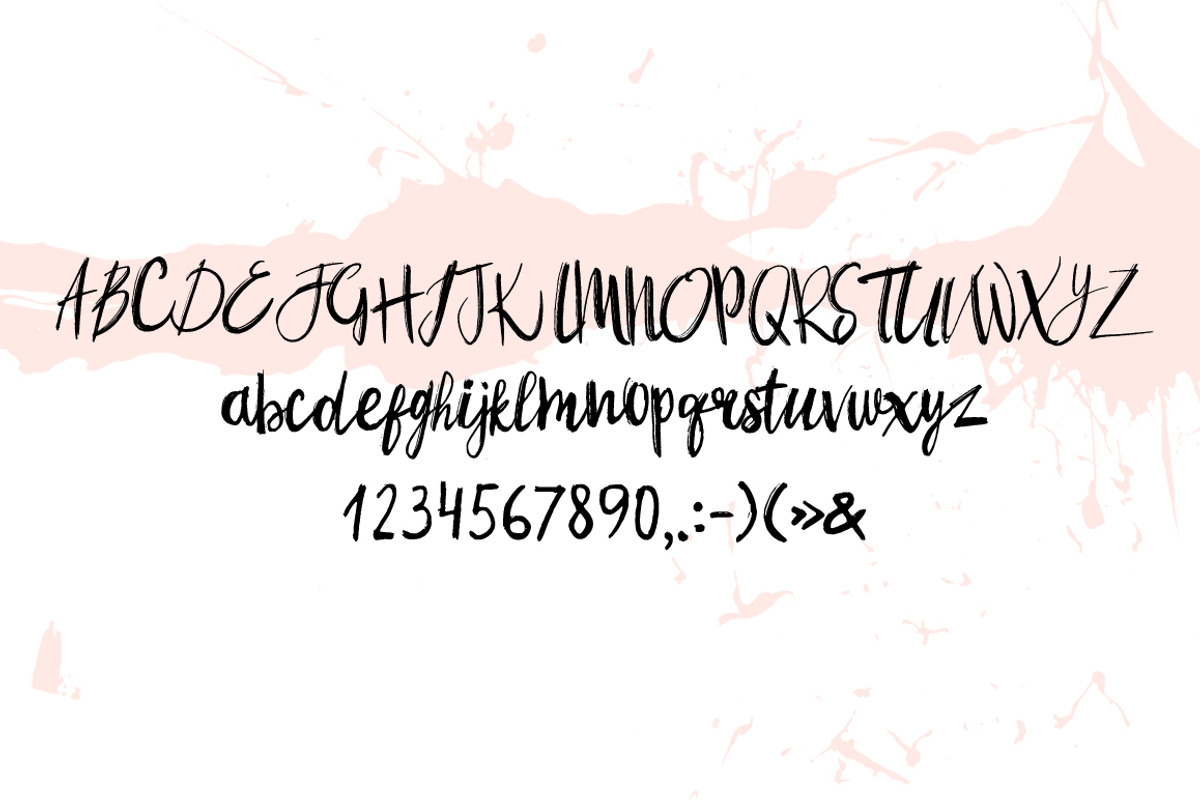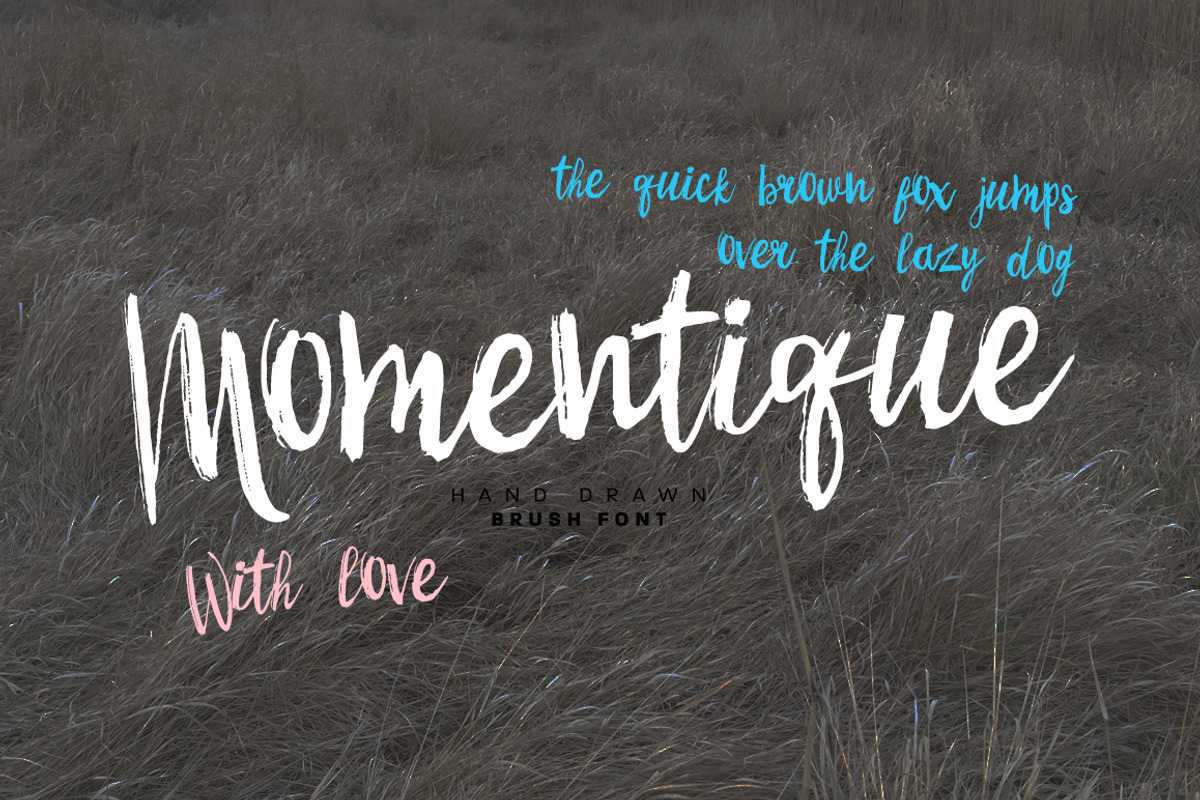
Momentique font
Momentique font by Anna Ozerina is a font selected for branding, posters, packaging, typography.
Why Momentique font is worth a look
Momentique font by Anna Ozerina fits naturally into Branding, posters, packaging, typography.